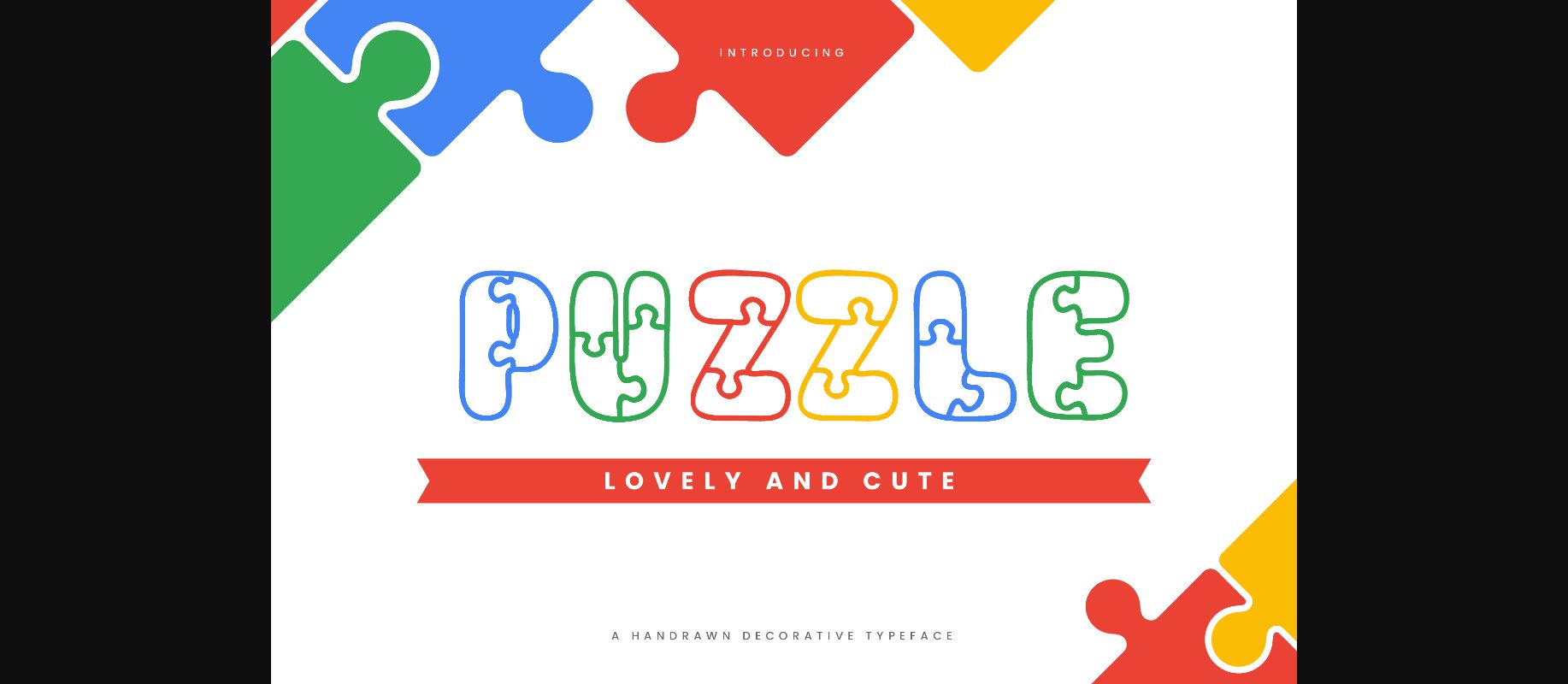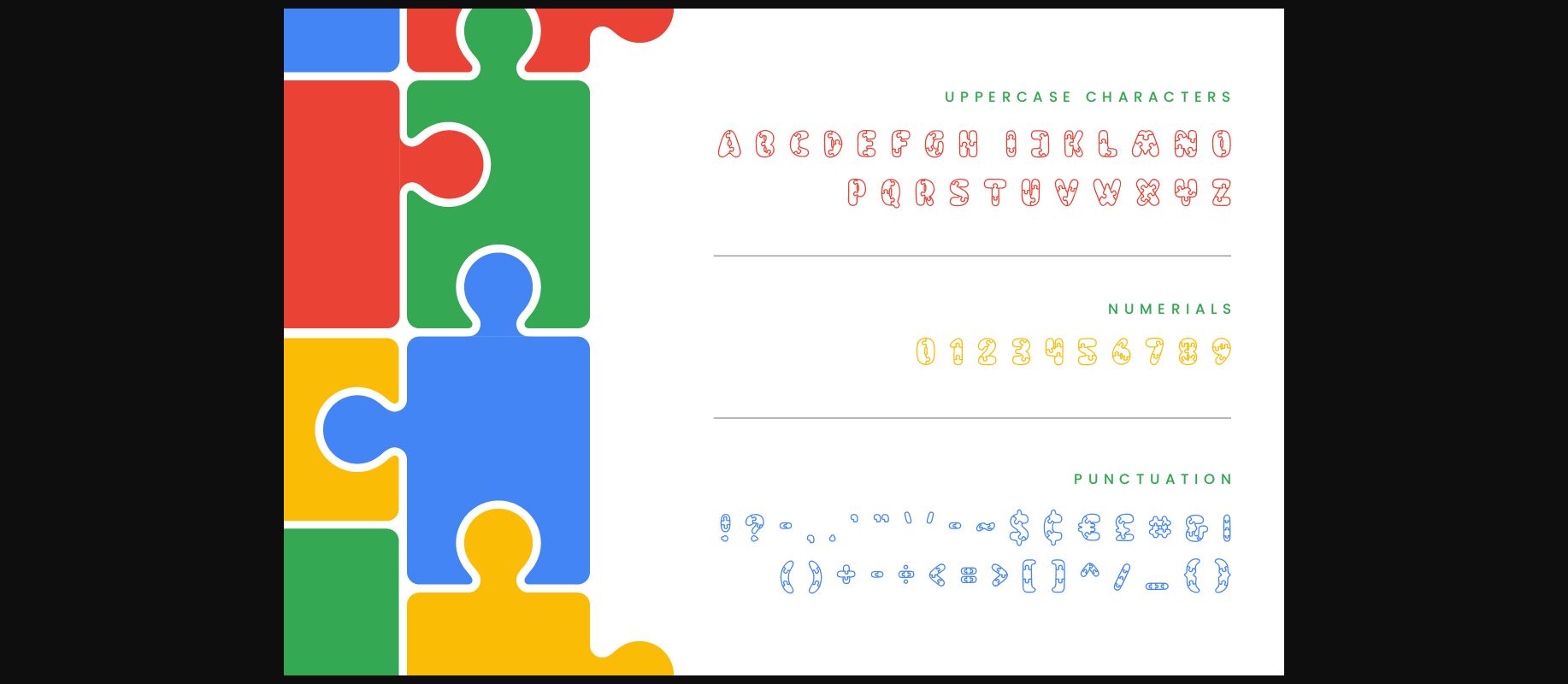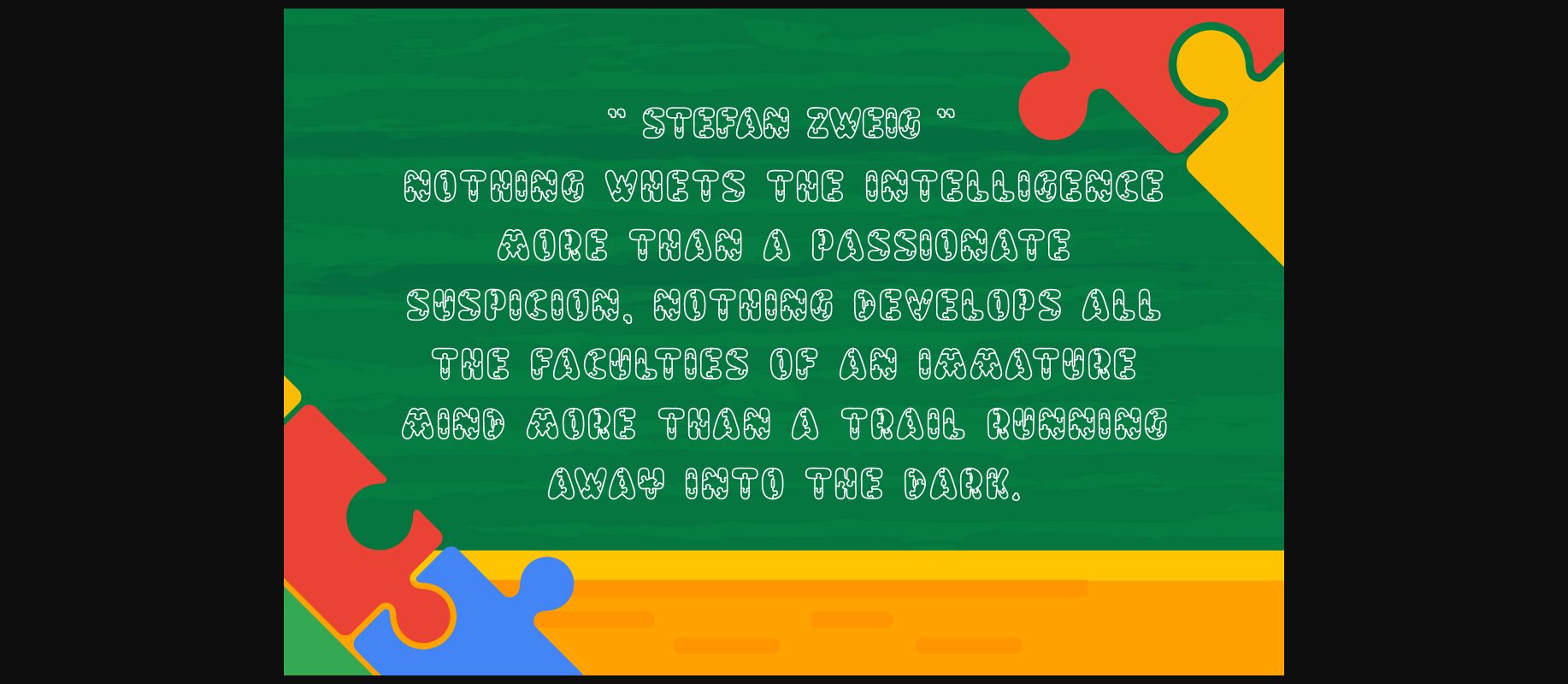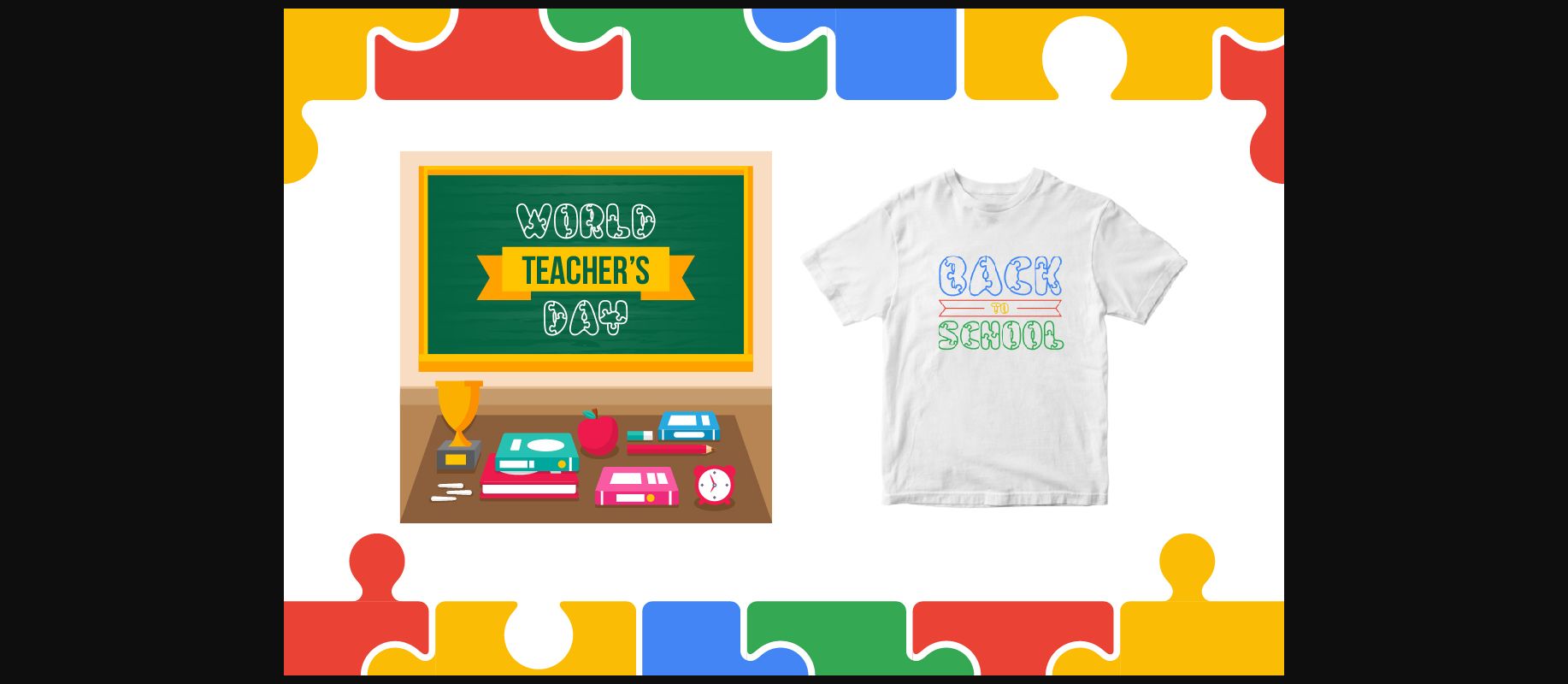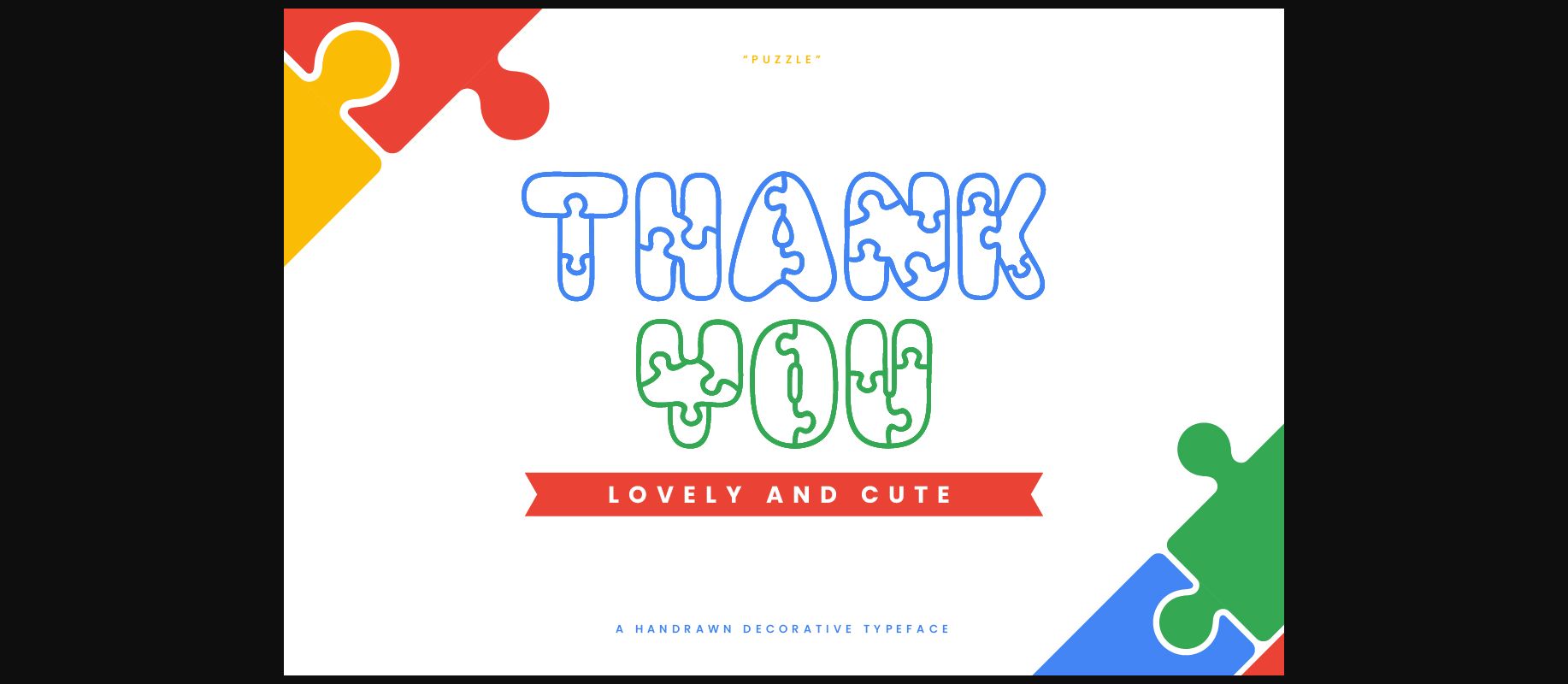
Puzzle Font
About Puzzle Font
Puzzle is an incredibly unique and interesting decorative font, featuring puzzle pieces. Add this font to your creative ideas and notice how it will make them stand out!